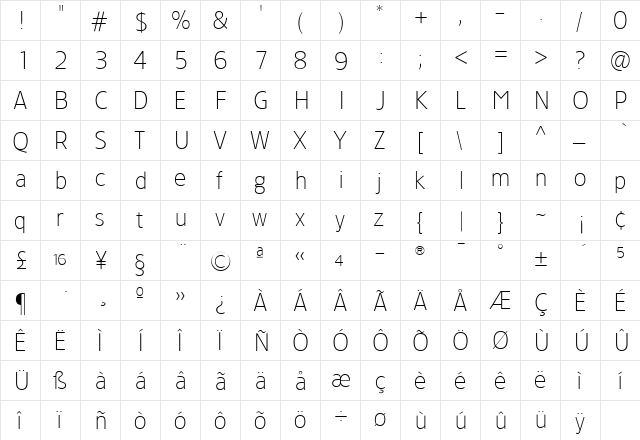
TFForever ExtraLight
| Foundry | J. Treacy,Treacyfaces,Inc |
| Year | 1988 |
Design Context for TFForever Typeface
TFForever takes a measured approach to typography — its balanced proportions and neutral character make it a reliable workhorse for both digital and print work. Its slender proportions lend an understated elegance to any composition.